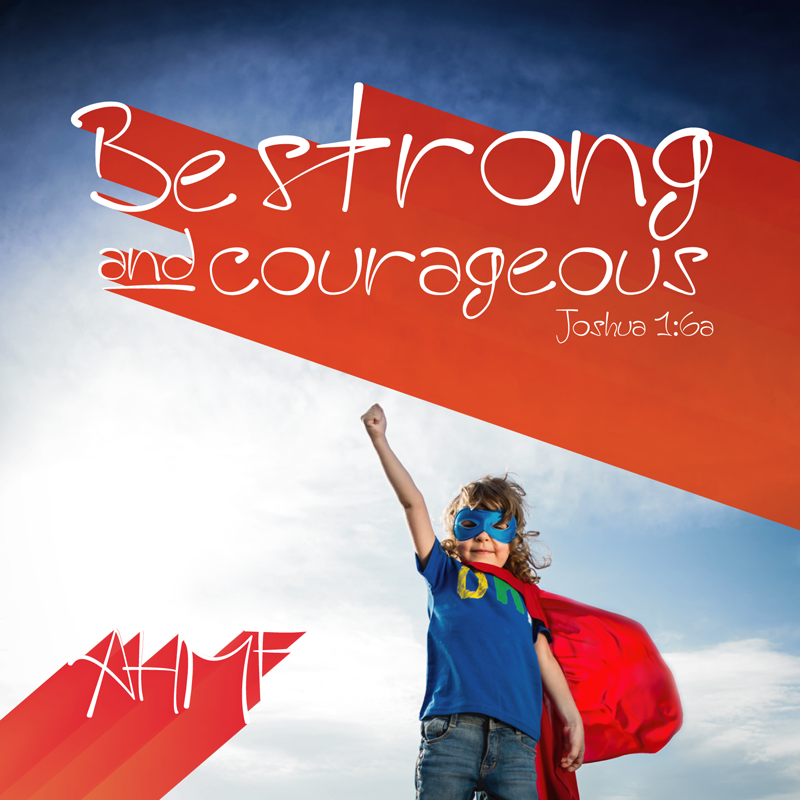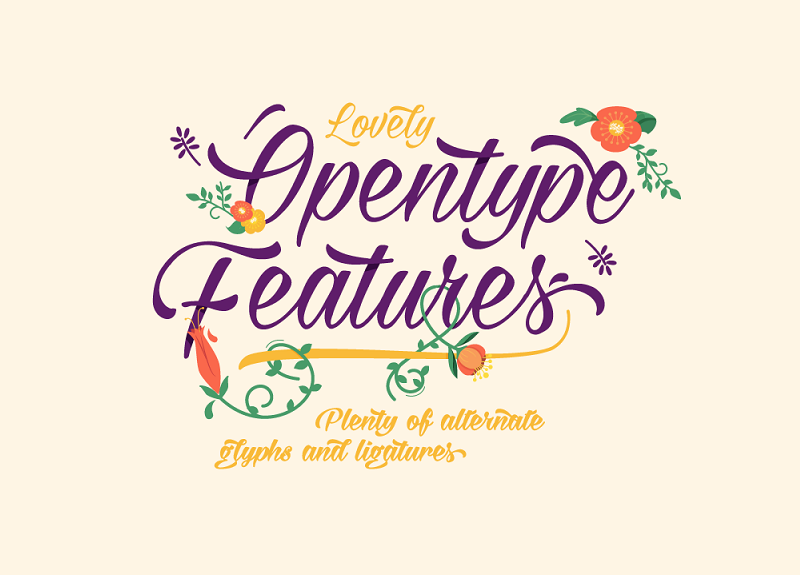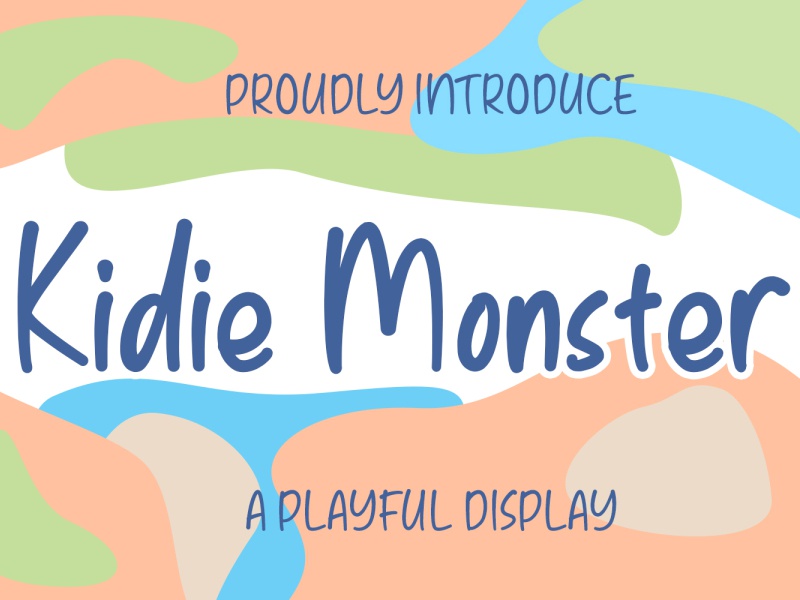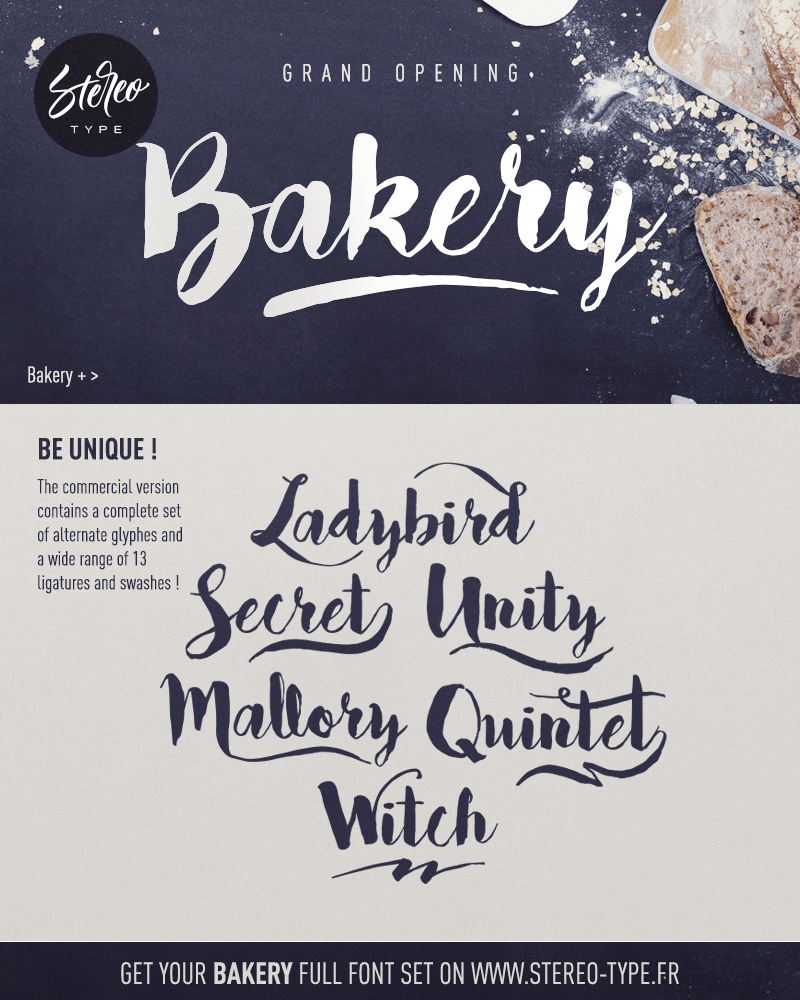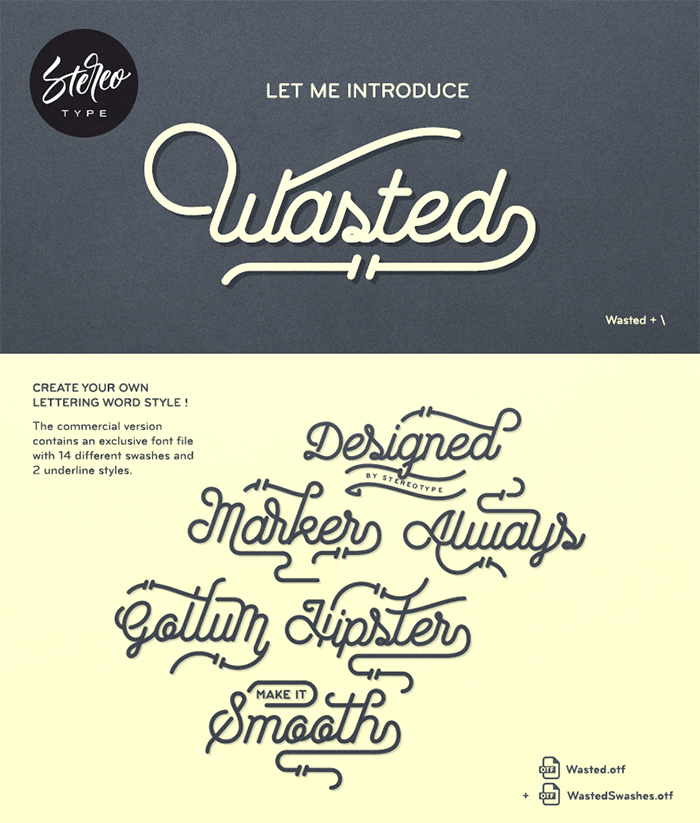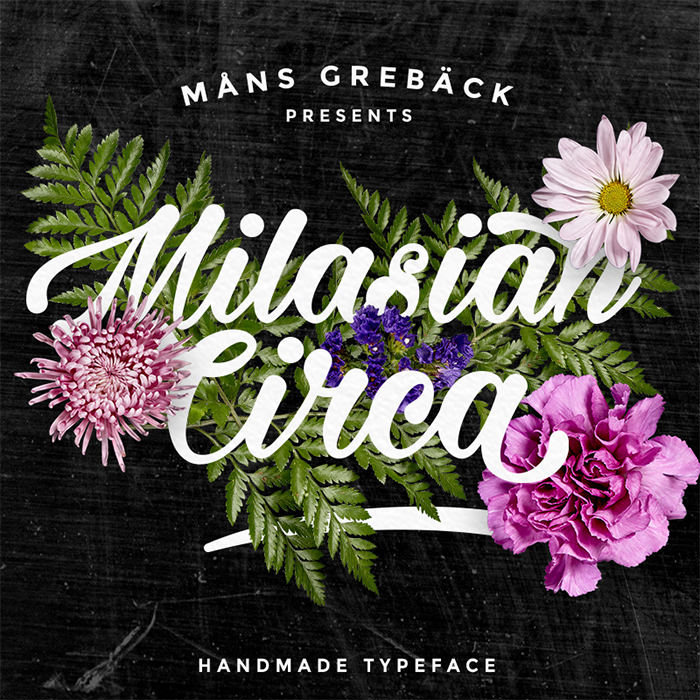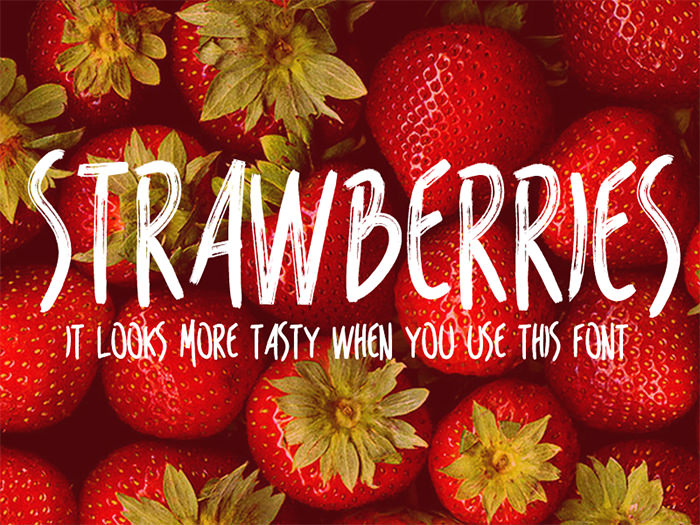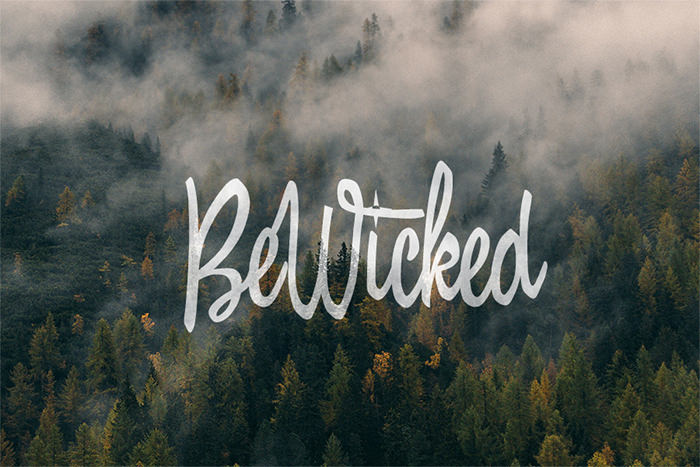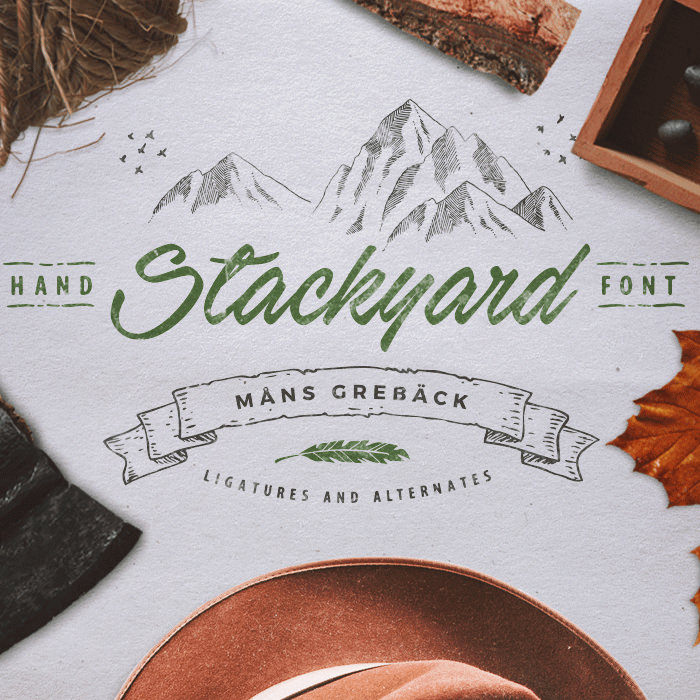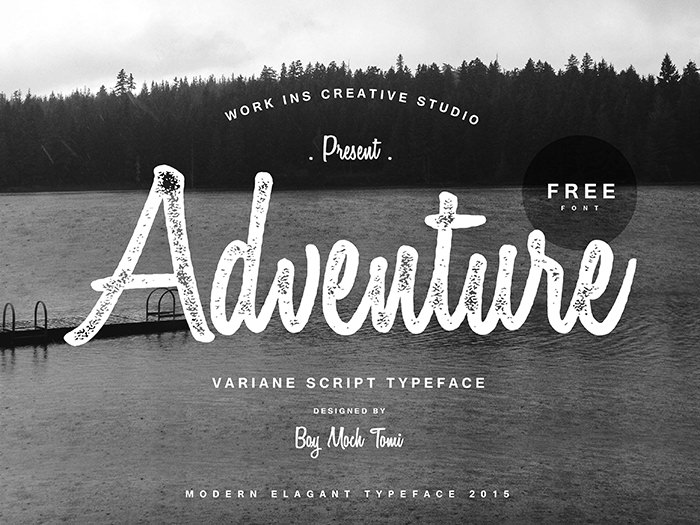
10+ Beautiful Handwritten & Cursive Fonts to Download
Be it a wedding invitation, preview images for a blog, to creative business card designs there are a lot of free fonts all over the web, but it could be quite challenging to find one that gives off a natural vibe.
The fonts we collected here can be blended into any design to match the theme of the design or to spice things up. From refined elegance to pure rawness, these are some of the best handwritten & cursive fonts you can find out there.